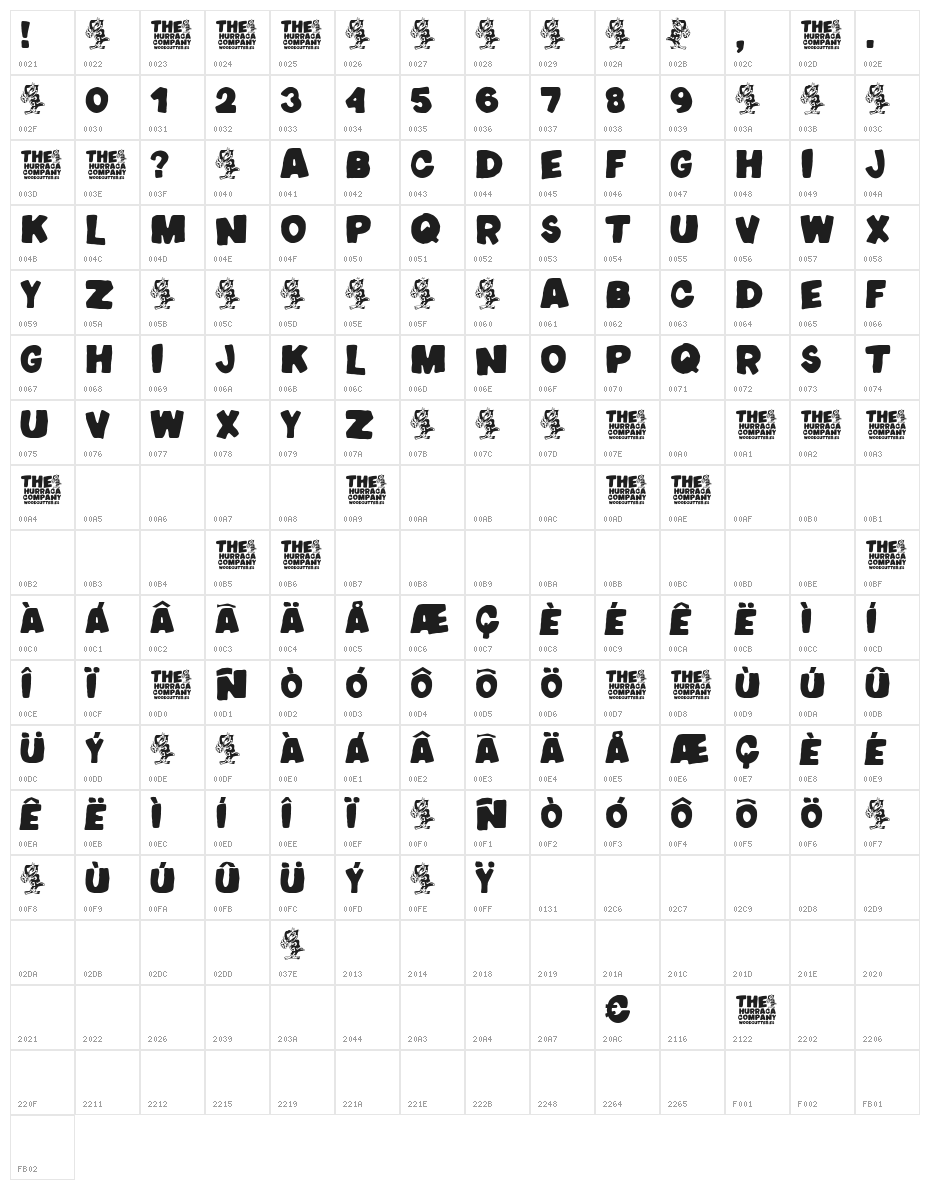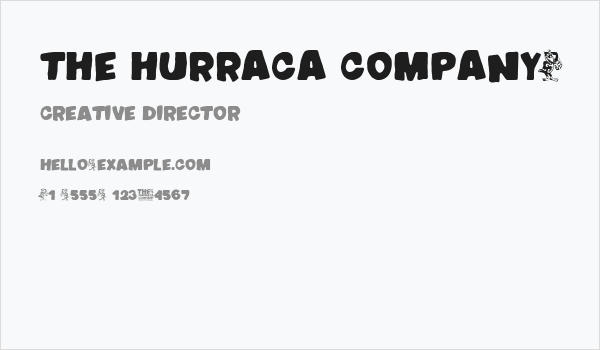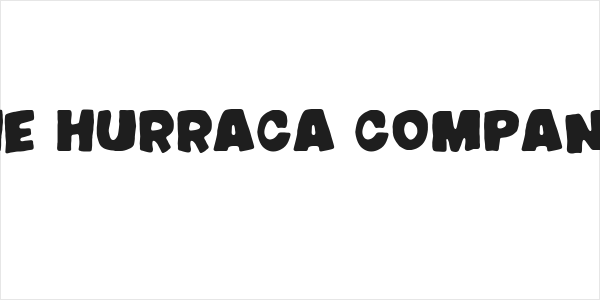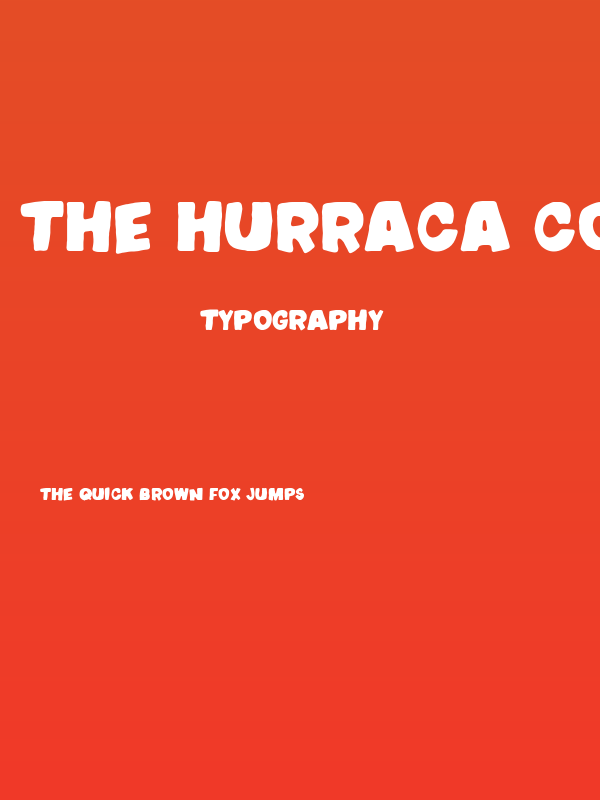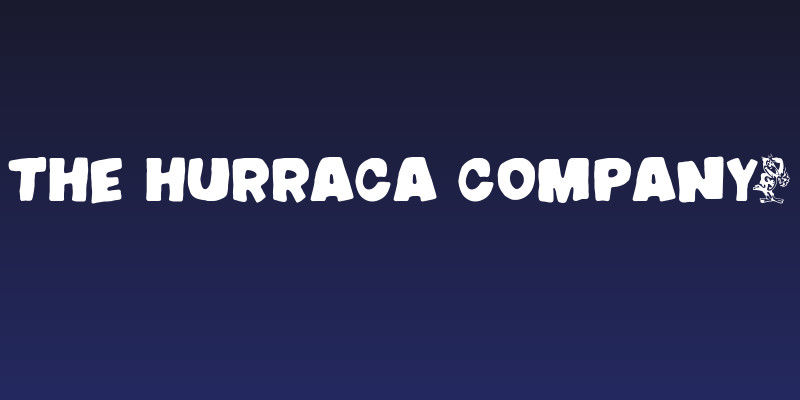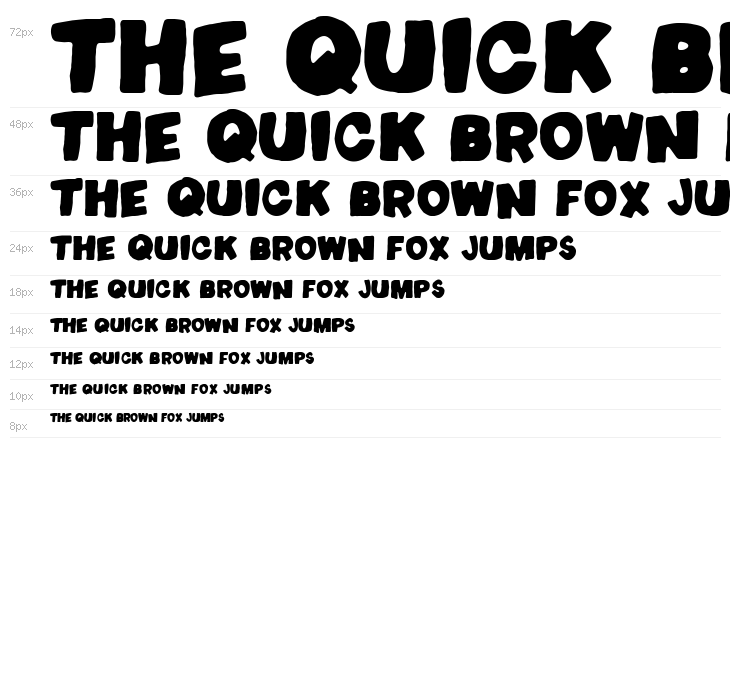
The Hurraca company+ Font
The Hurraca company+ Description
This font features a bold and playful design with thick, rounded strokes that give it a cartoonish and whimsical appearance. The characters are robust and have a slightly irregular shape, adding to their charm and uniqueness. The uppercase and lowercase letters maintain a consistent style, with a strong emphasis on rounded edges and a bubbly aesthetic. The numbers and special characters follow the same design principles, ensuring a cohesive look across all glyphs. This font is ideal for projects that require a fun and engaging visual impact.
| Proposed Projects | Perfect for children's books, comic strips, playful branding, and party invitations. |